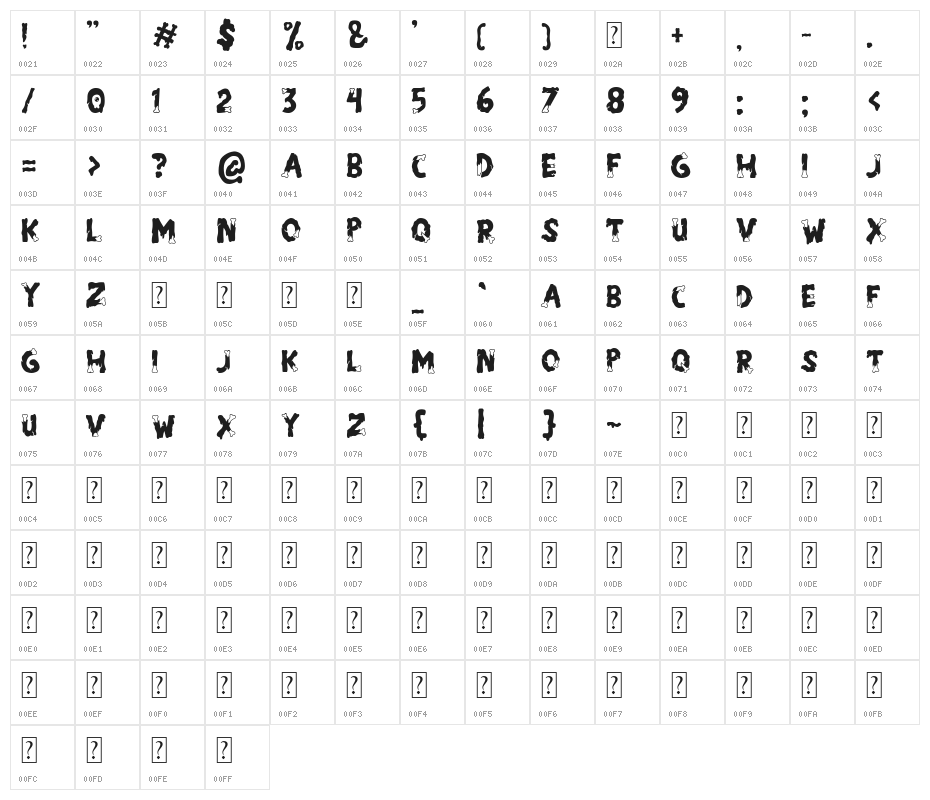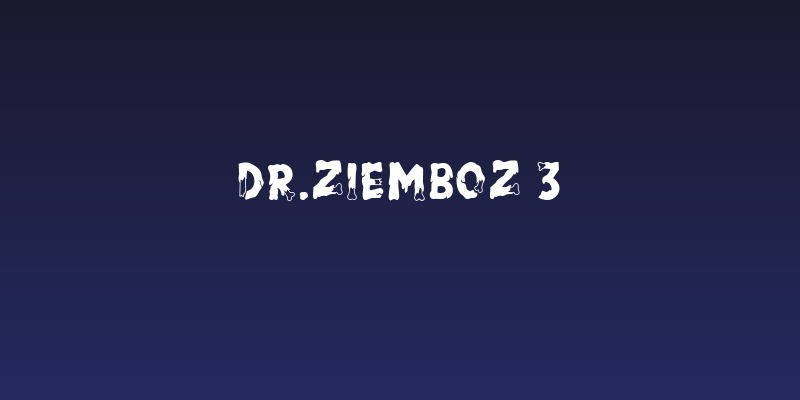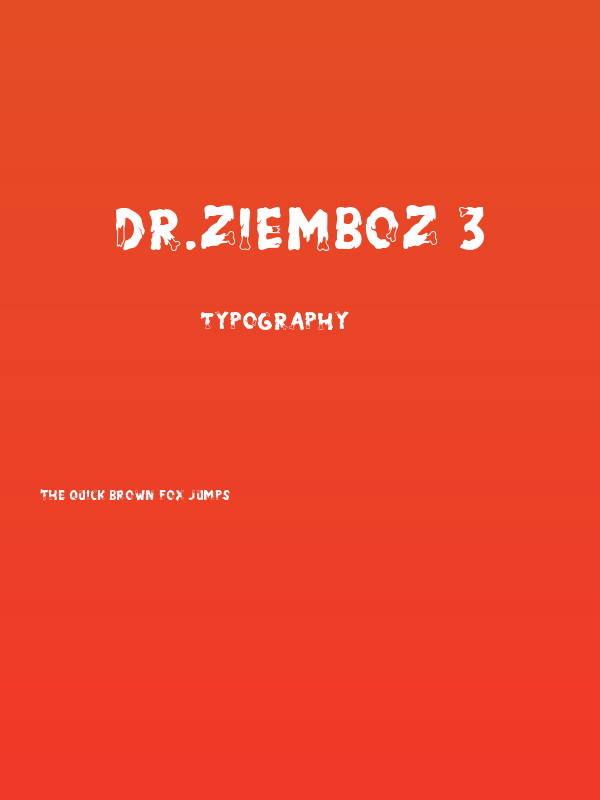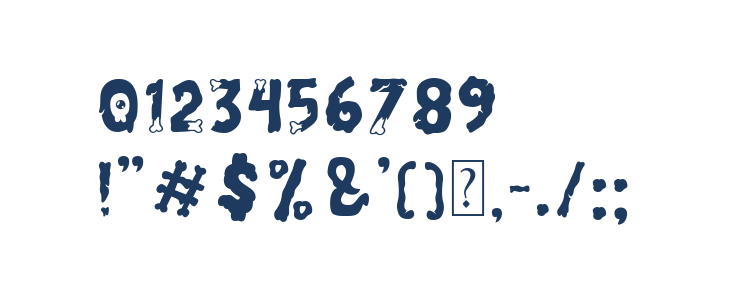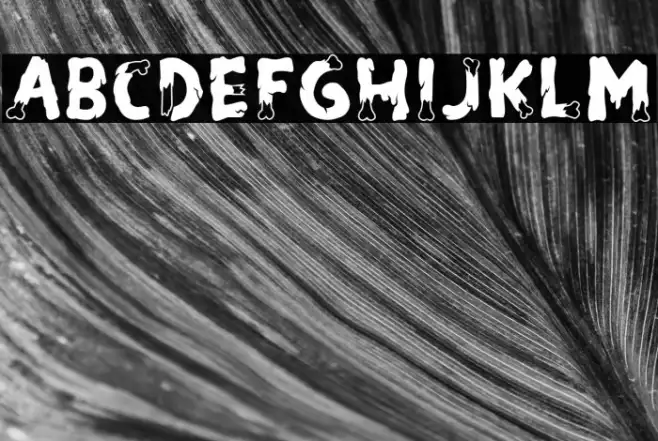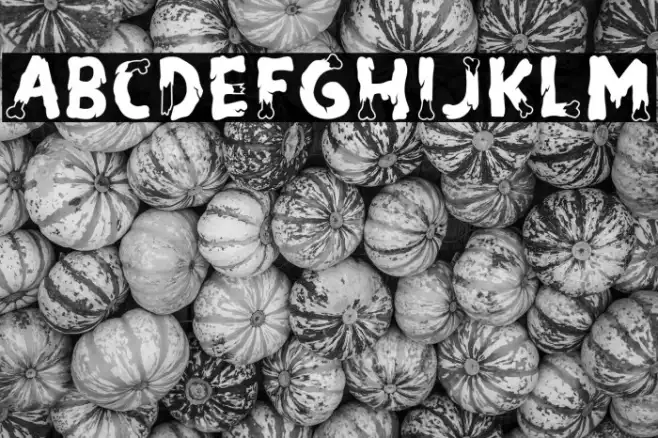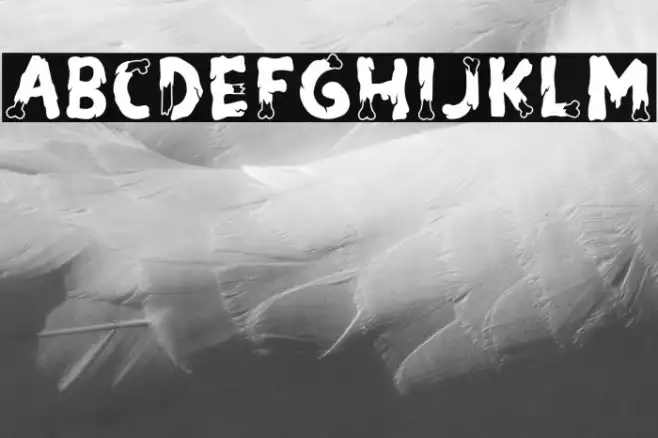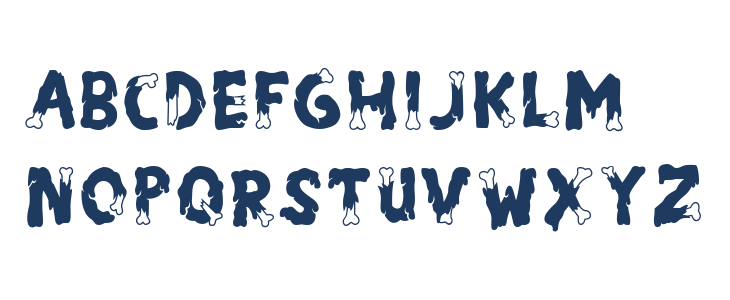
Dr.Ziemboz 3 Font
Dr.Ziemboz 3 Description
This playful and quirky font features bold, chunky letters with a unique bone-like design incorporated into each character. The letters are irregular and have a hand-drawn feel, adding a whimsical and fun touch to any project. The font includes both uppercase and lowercase letters, numbers, and a variety of special characters, making it versatile for different uses. The design is reminiscent of Halloween or spooky themes, making it ideal for seasonal projects or anything that requires a touch of the unusual. The overall appearance is eye-catching and distinctive, perfect for grabbing attention.
| Proposed Projects | Ideal for Halloween-themed designs, children's book covers, party invitations, or any project needing a quirky, spooky touch. |